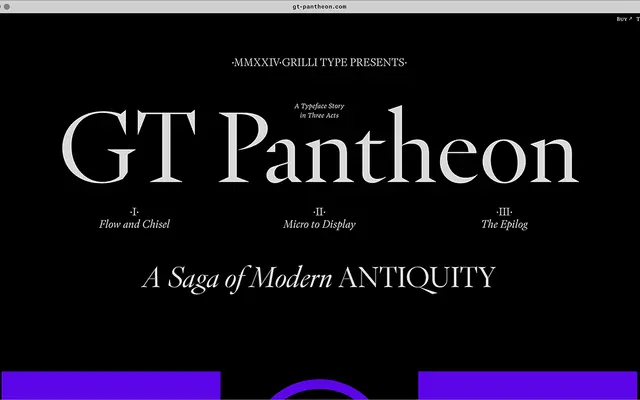
GT Pantheon
Grilli Type · Tobias Rechsteiner and Noël Leu · 2024
Tobias Rechsteiner and Noël Leu's three-optical-size serif, moving from Micro through Text to Display.
A 30-style serif by Tobias Rechsteiner and Noël Leu, released in 2024. Grilli describe Pantheon as an interpretation of historic shapes in a contemporary manner, with an expressive and dynamic character in every stroke. Three optically-adjusted faces (Micro, Text and Display) cover small captions through to headline sizes, moving between elegance, sharpness, warmth and robustness, with production by Antonio D'Elisiis.
Grilli describe it as an interpretation of historic shapes in a contemporary manner. Three optically-adjusted faces (Display, Text and Micro) represent the same type at different sizes, moving between elegance, sharpness, warmth and robustness.